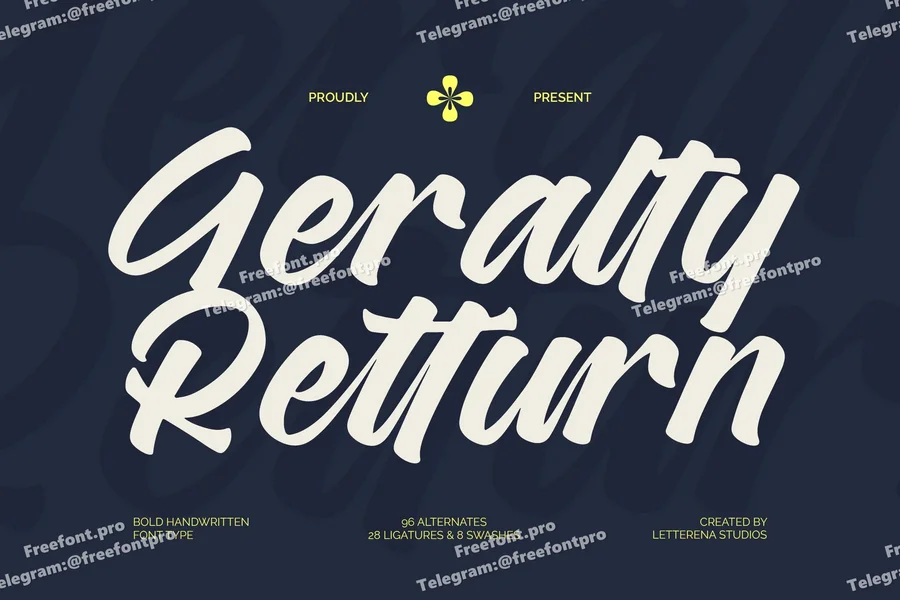
Geralty Retturn
Hi ladies & gentlemen, this is one of our fonts suitable to complement your digital and printed creative products. This font is perfect for posters, social media posts, branding, personal projects, etc.